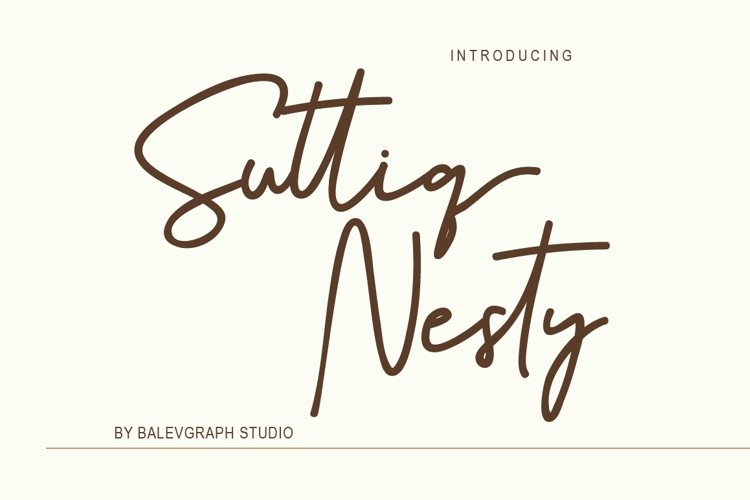
Suttiq Nesty has a luxurious and elegant handwriting style.
Suttiq Nesty would perfect for photography, watermark, social media posts, advertisements, logos & branding, invitation, product designs, label, stationery, wedding designs, product packaging, special events or anything that need handwriting taste.